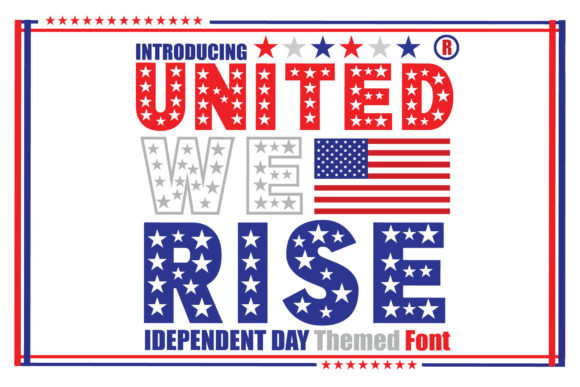
Unveiling United We Rise: A Font that Ignites Boldness, Motion, and Impact
In the realm of visual storytelling, where fonts hold the power to transform words into captivating narratives, United We Rise emerges as a trailblazer. This audacious display font, a brainchild of the esteemed KtwoP, is a symphony of strength, dynamism, and unwavering assertion. Its very essence exudes an energy that propels your designs to new heights, leaving an indelible mark on the minds of your audience.
United We Rise is not merely a collection of characters; it's a testament to the transformative power of typography. Its bold strokes and confident curves embody a spirit of determination and resilience, inspiring you to push boundaries and make a statement with your creations. Whether you're a seasoned designer or just starting your creative journey, this font is your passport to a world of boundless possibilities.
With United We Rise as your creative companion, you'll embark on a thrilling expedition through the realm of speed, sports, and adrenaline-fueled adventures. Its meticulously crafted glyphs capture the essence of motion, lending a sense of urgency and excitement to your designs. Whether you're crafting posters that evoke the exhilaration of a race or designing logos that embody the power of athleticism, United We Rise will amplify your message and leave your audience breathless.
But United We Rise is more than just a font for sports and speed. Its versatility extends far beyond the confines of these genres. Its inherent boldness and unwavering confidence make it an ideal choice for a diverse range of design projects. From captivating headlines that demand attention to eye-catching posters that ignite imaginations, United We Rise has the power to transform any concept into a visual masterpiece.
Let your creativity soar as you explore the endless variations of United We Rise. Experiment with different weights, sizes, and color combinations to discover a symphony of visual expressions. Each iteration of this remarkable font breathes new life into your designs, ensuring that your message resonates with your audience on a profound level.
United We Rise is not just a font; it's an experience. It's an invitation to embrace boldness, ignite passion, and leave an enduring legacy with your designs. As you wield this typographic marvel, you'll discover a newfound sense of empowerment and inspiration, propelling you towards creative excellence.